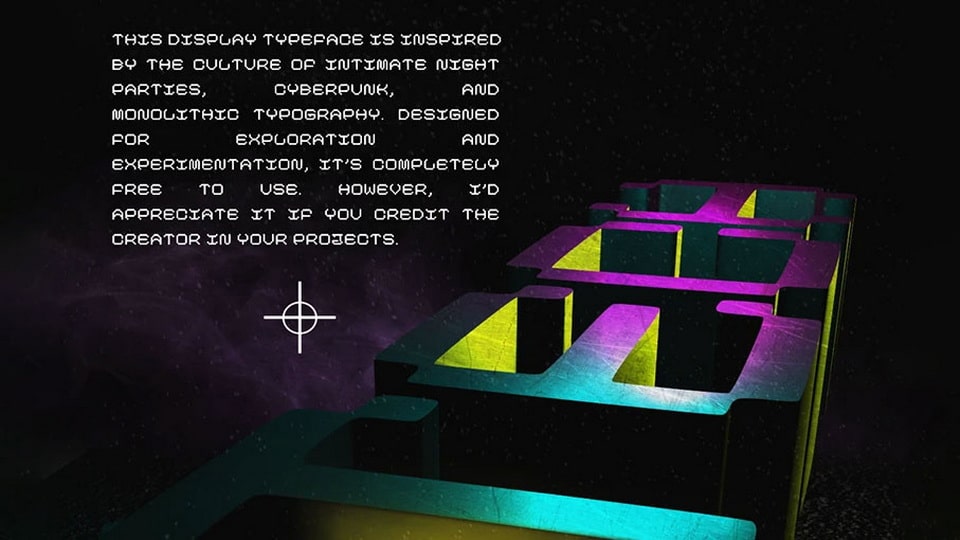
Tech_Club_01 Font › Fontesk – Download Grátis
Download Tech_Club_01 font, a display typeface inspired by the culture of intimate night parties, cyberpunk, and monolithic typography.
Designer: Arsenii Vitin